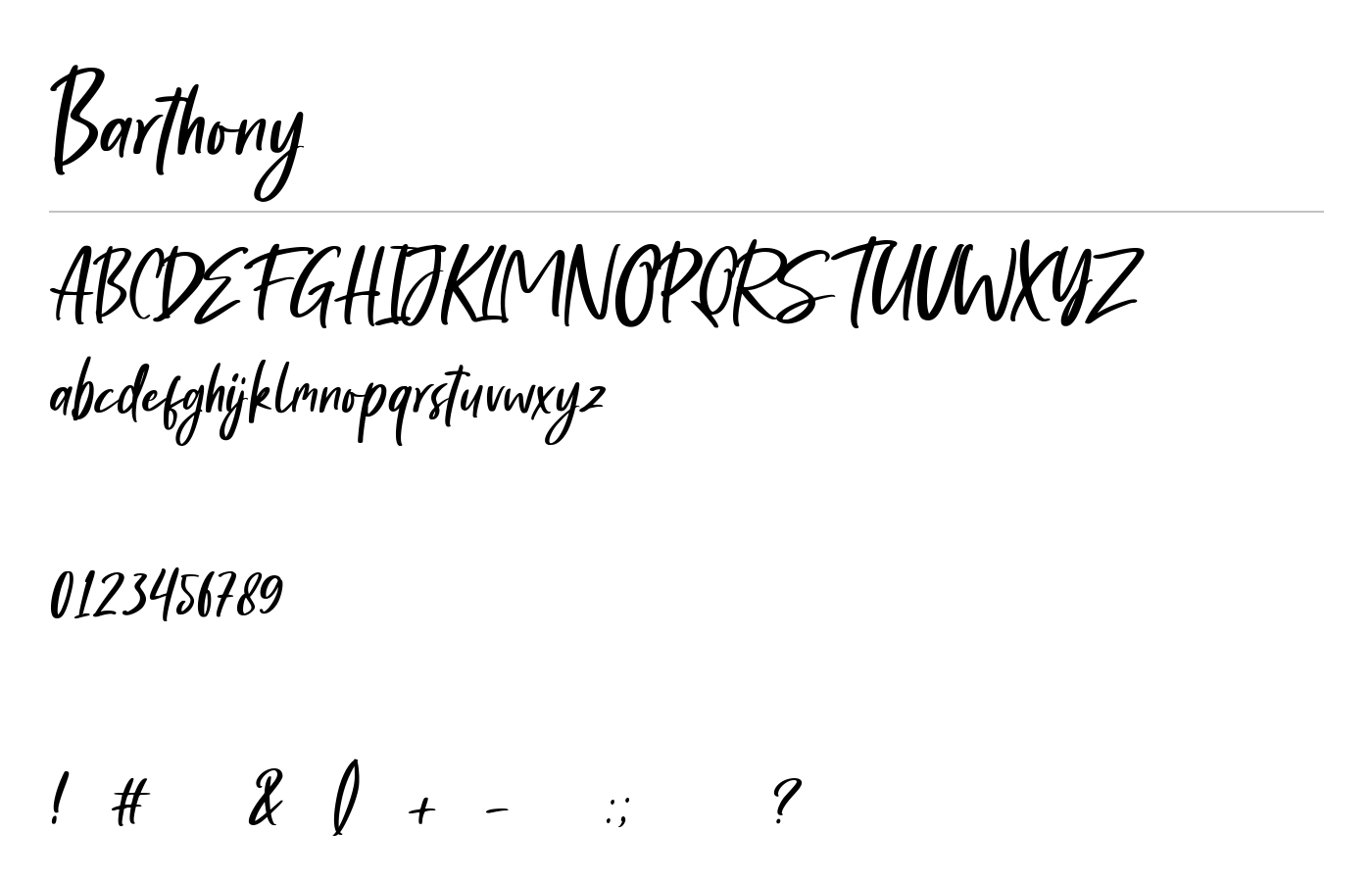
Barthony is a lively and casual script font that features tall, narrow letterforms with a handwritten, brush-like quality. Its playful and energetic strokes make it ideal for creative projects such as branding, invitations, and social media graphics where a personal, approachable feel is desired. This font brings warmth and personality, making it perfect for designs that want to convey friendliness and modern style.
Barthony Font
About Barthony Font